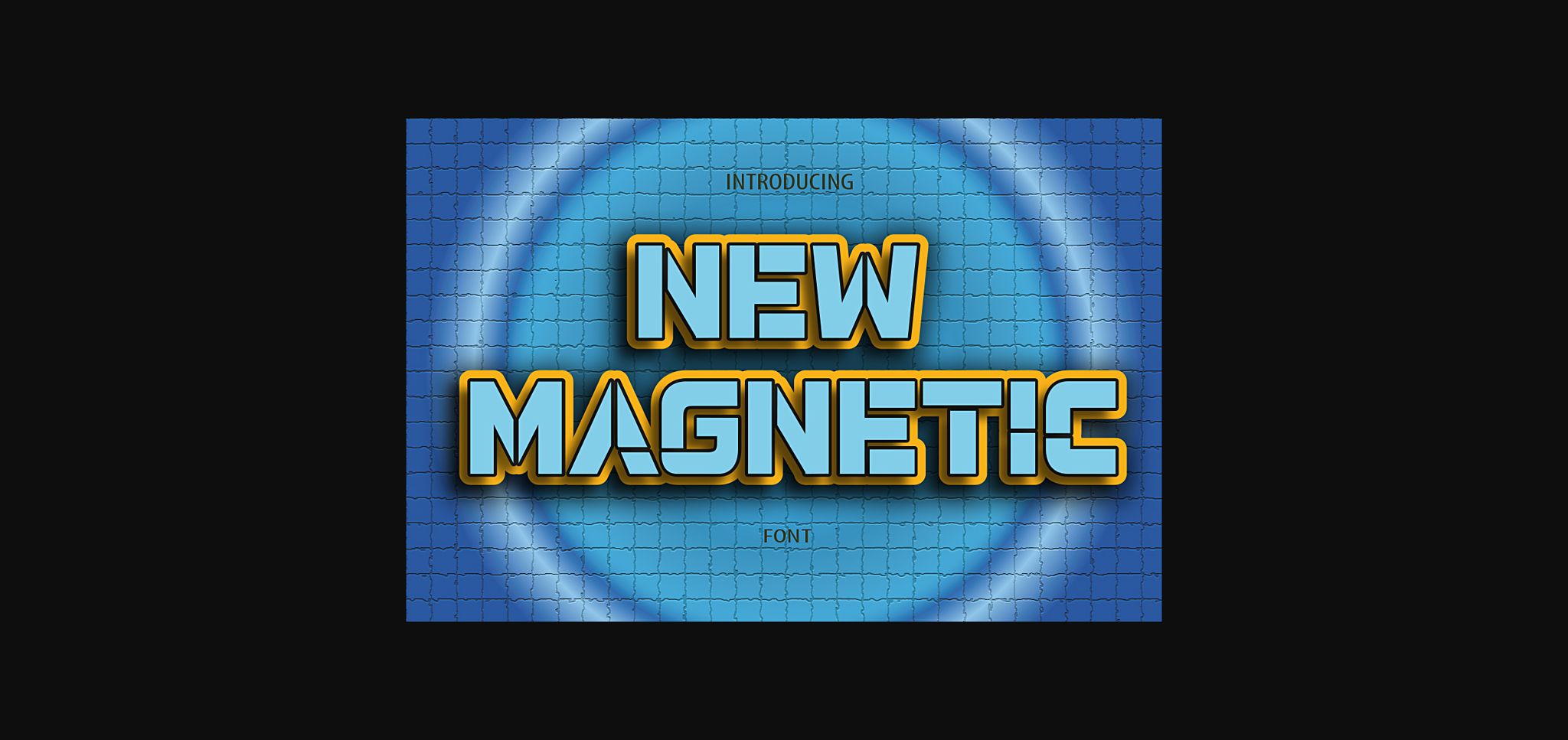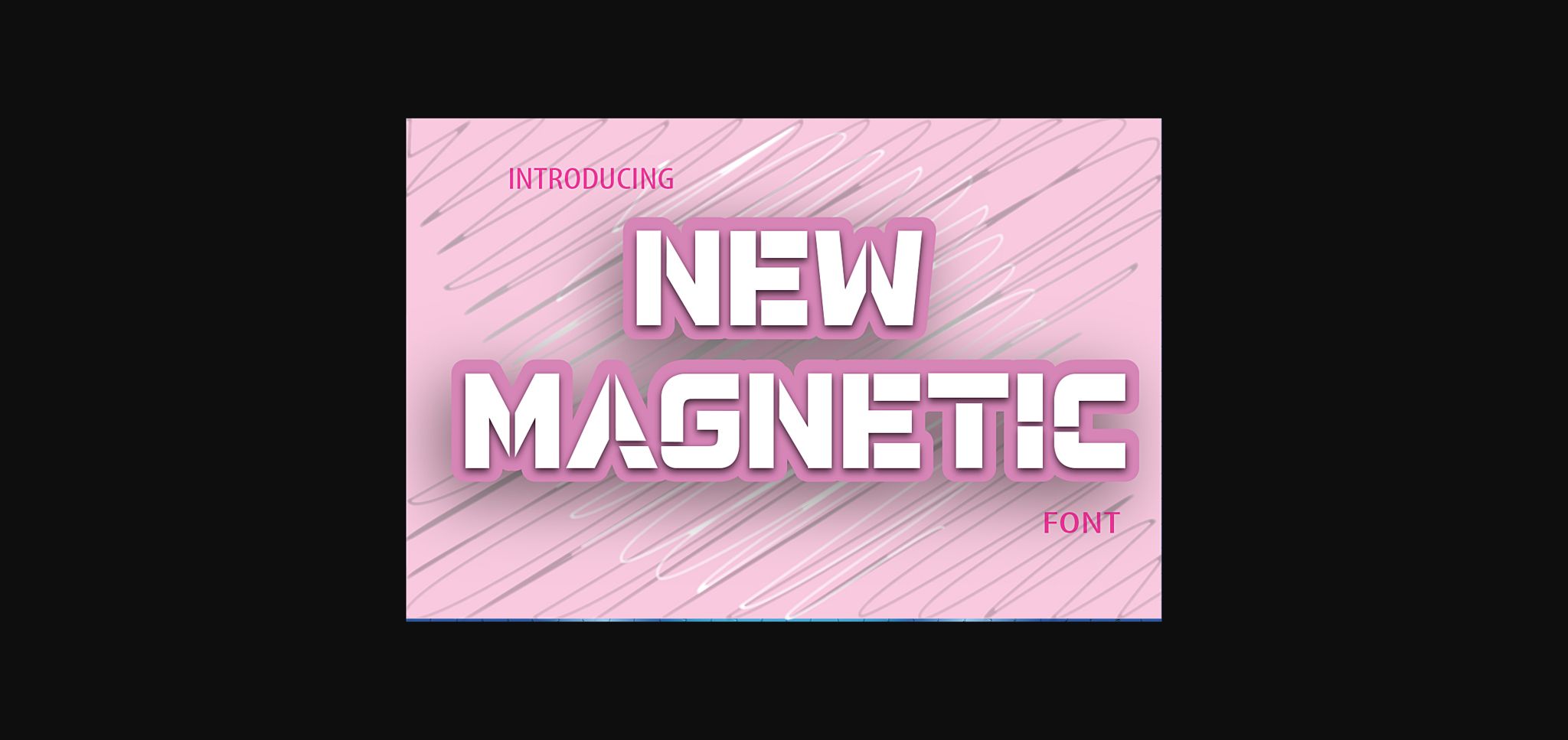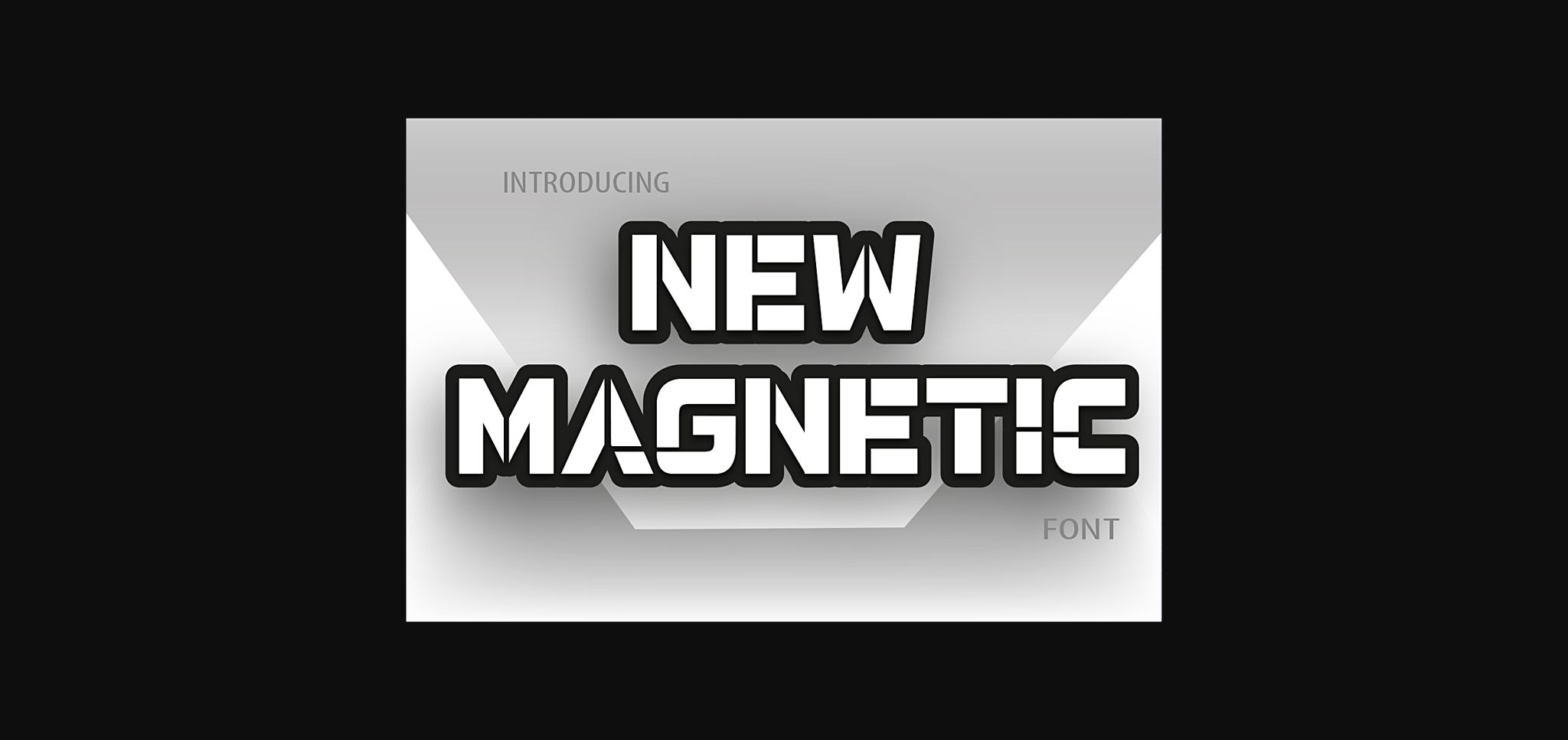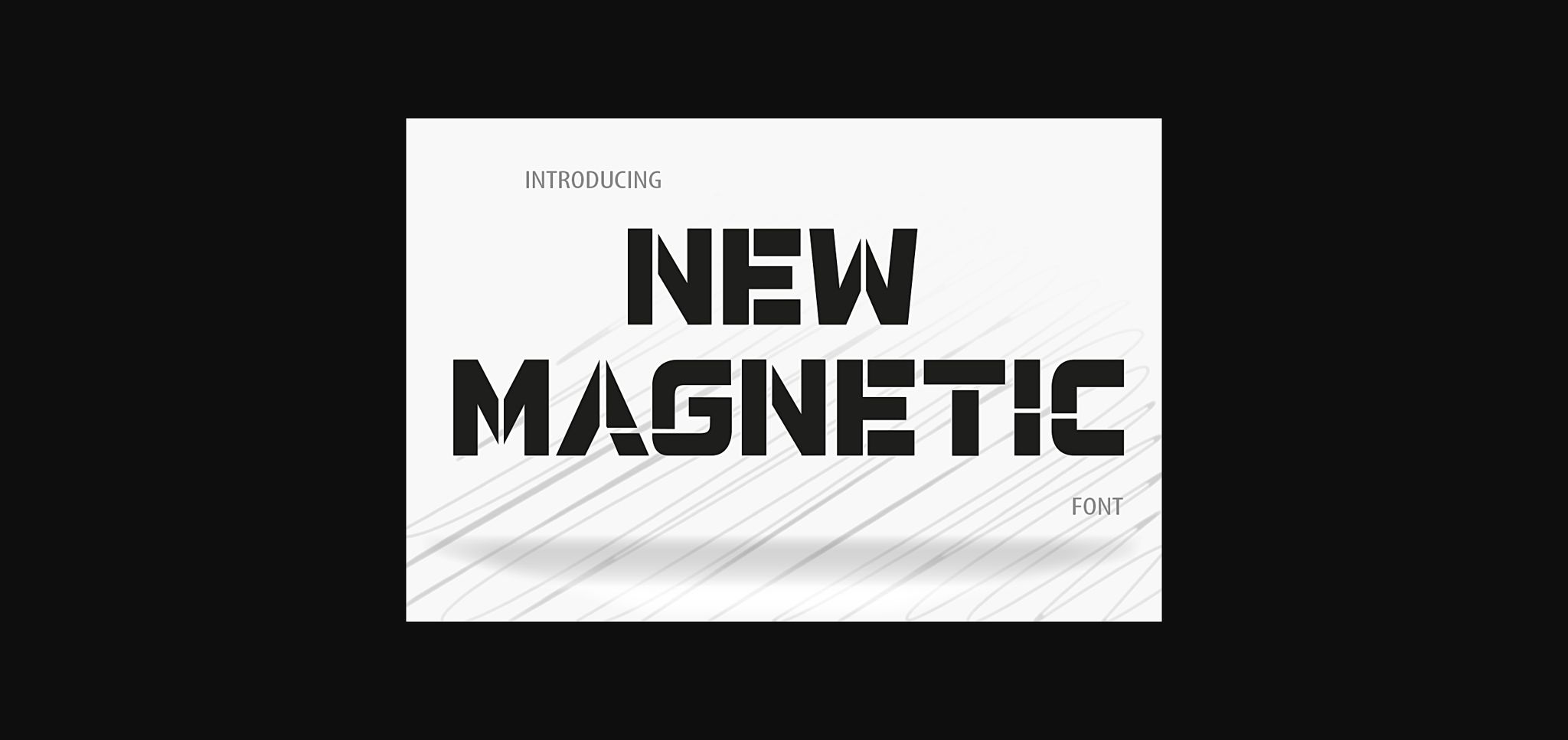
New Magnetic Font
About New Magnetic Font
This is a very cool geometric sans serif font designed by Yellowfonts. It has a modern style and suits a variety of applications. It has characteristic intersected letters, which gives it a unique style and a fresh, modern look. Try it and see for yourself if it is good for your applications.